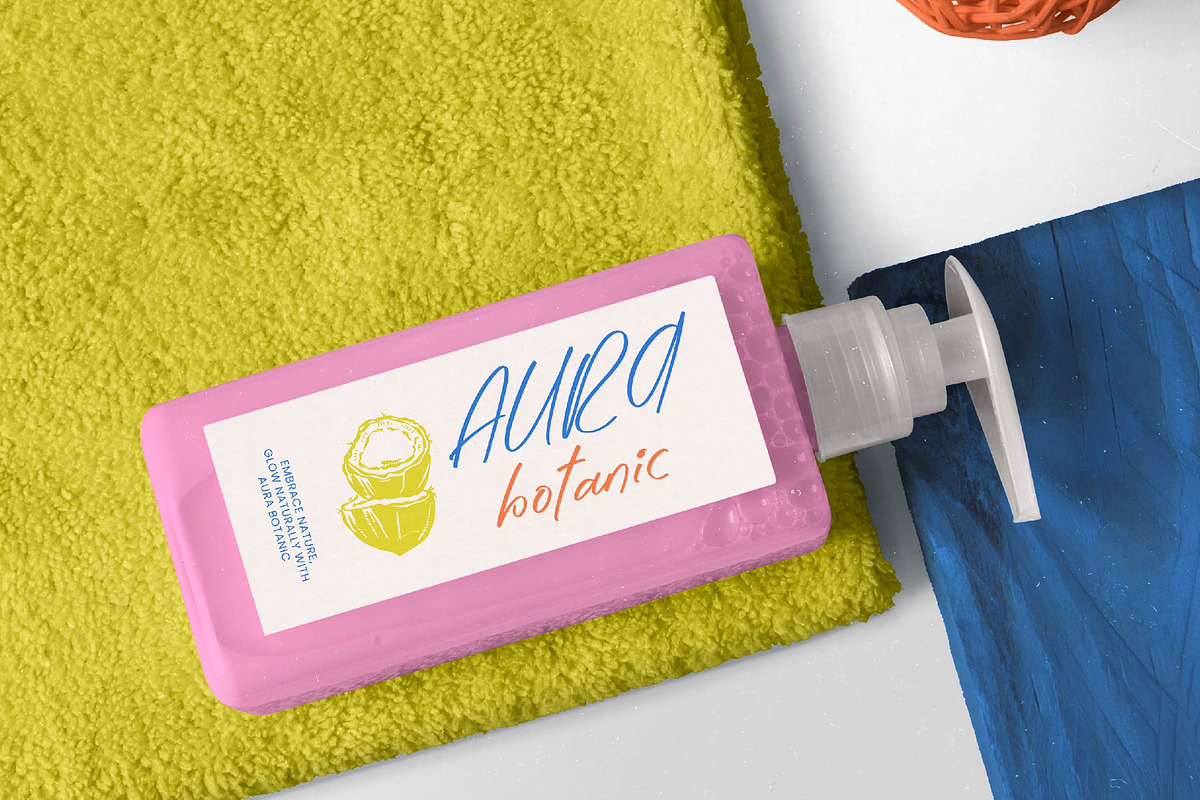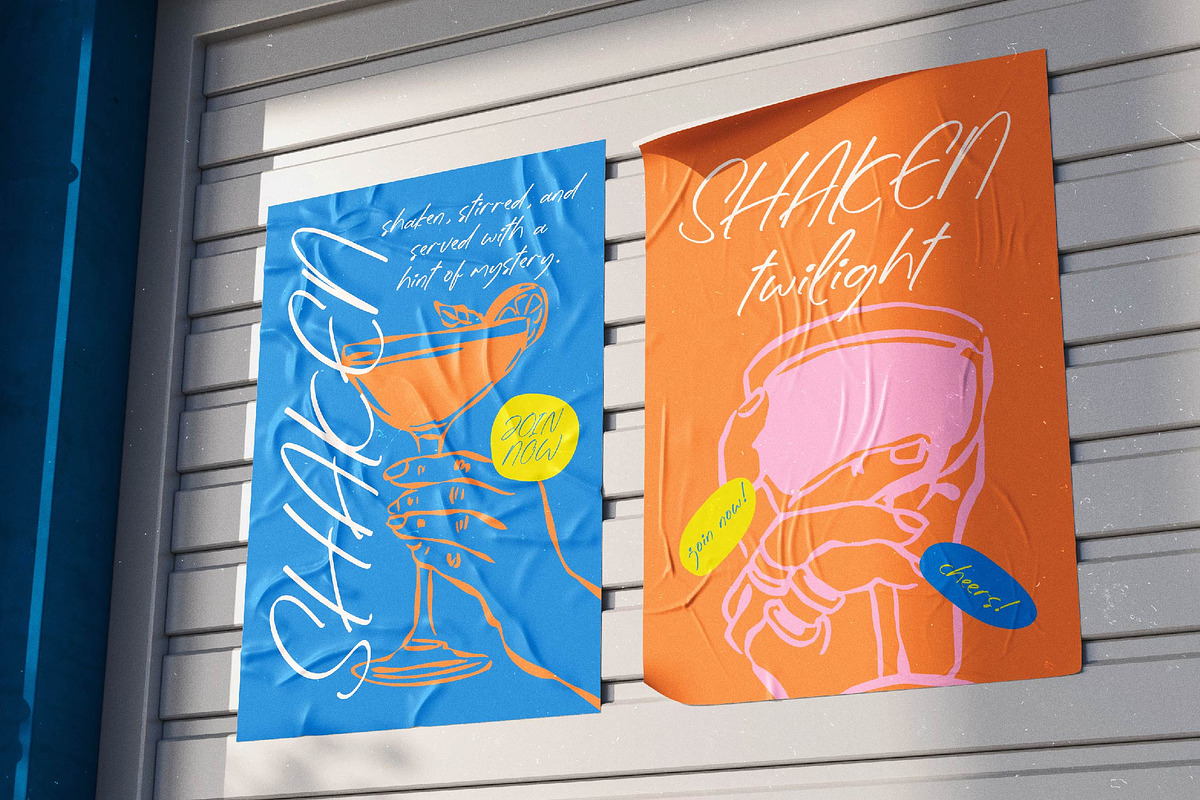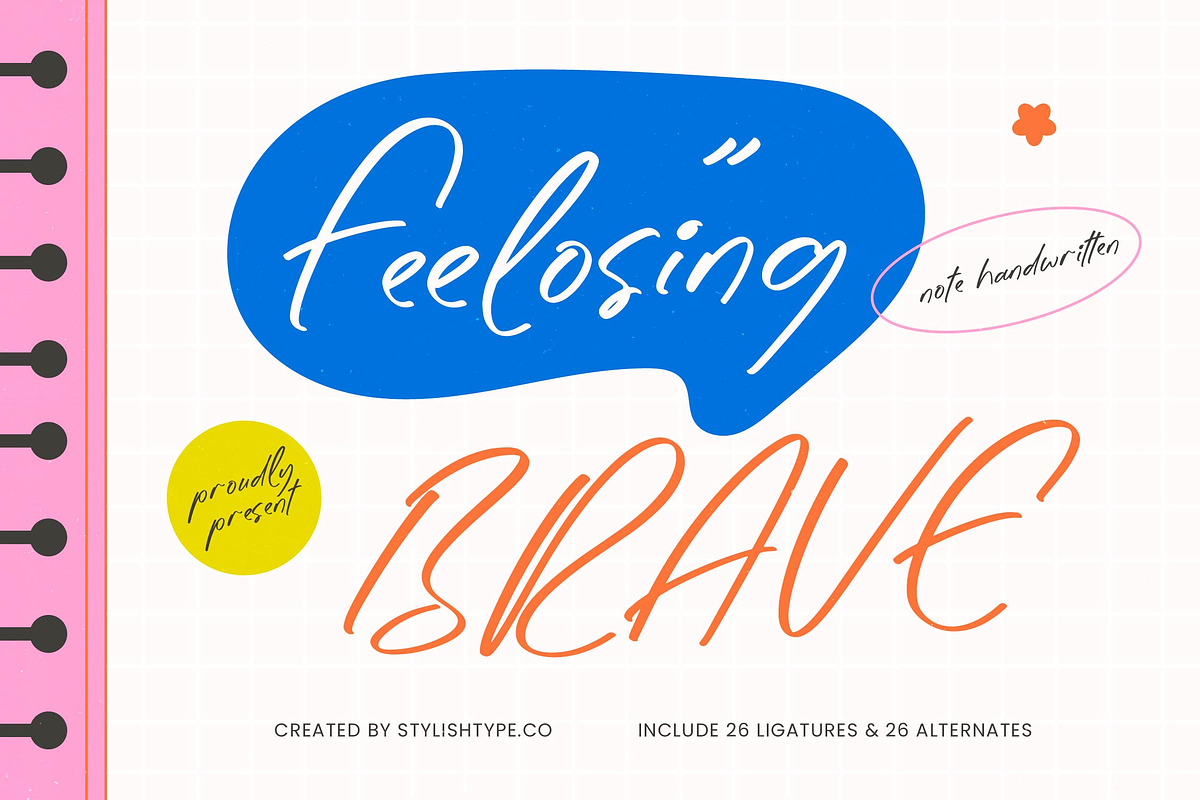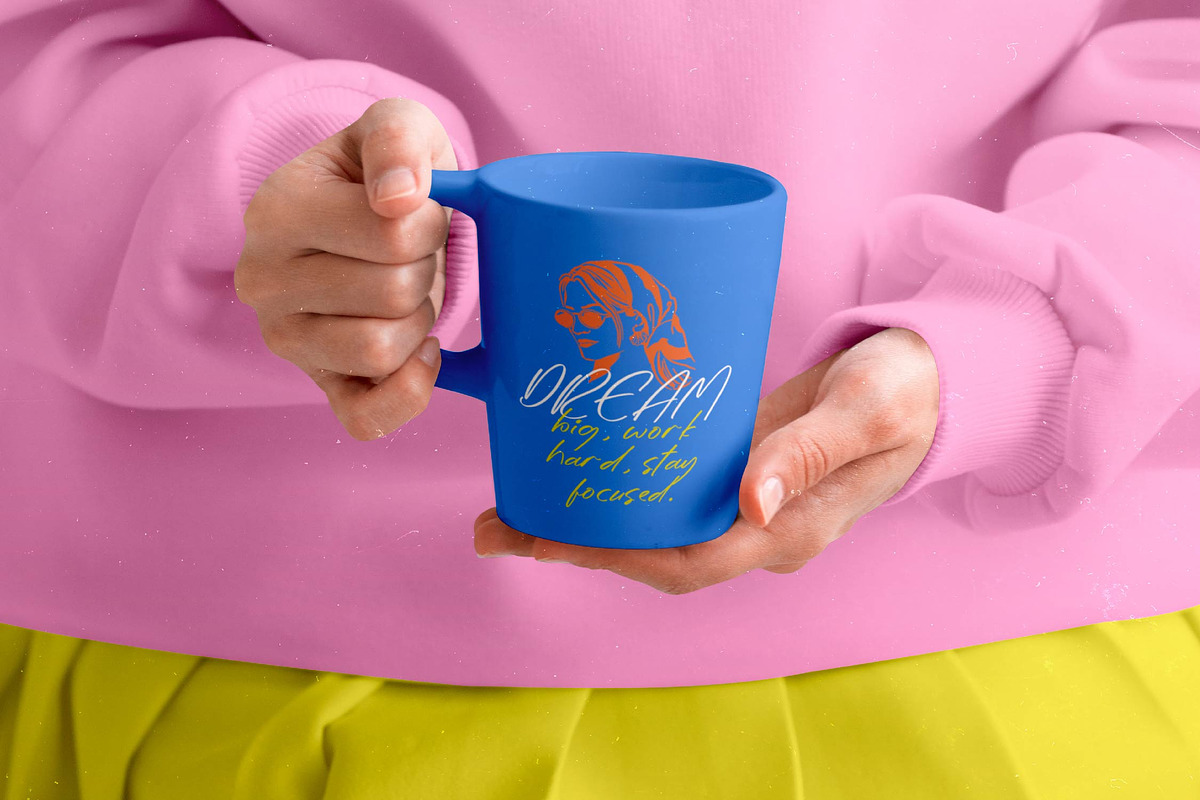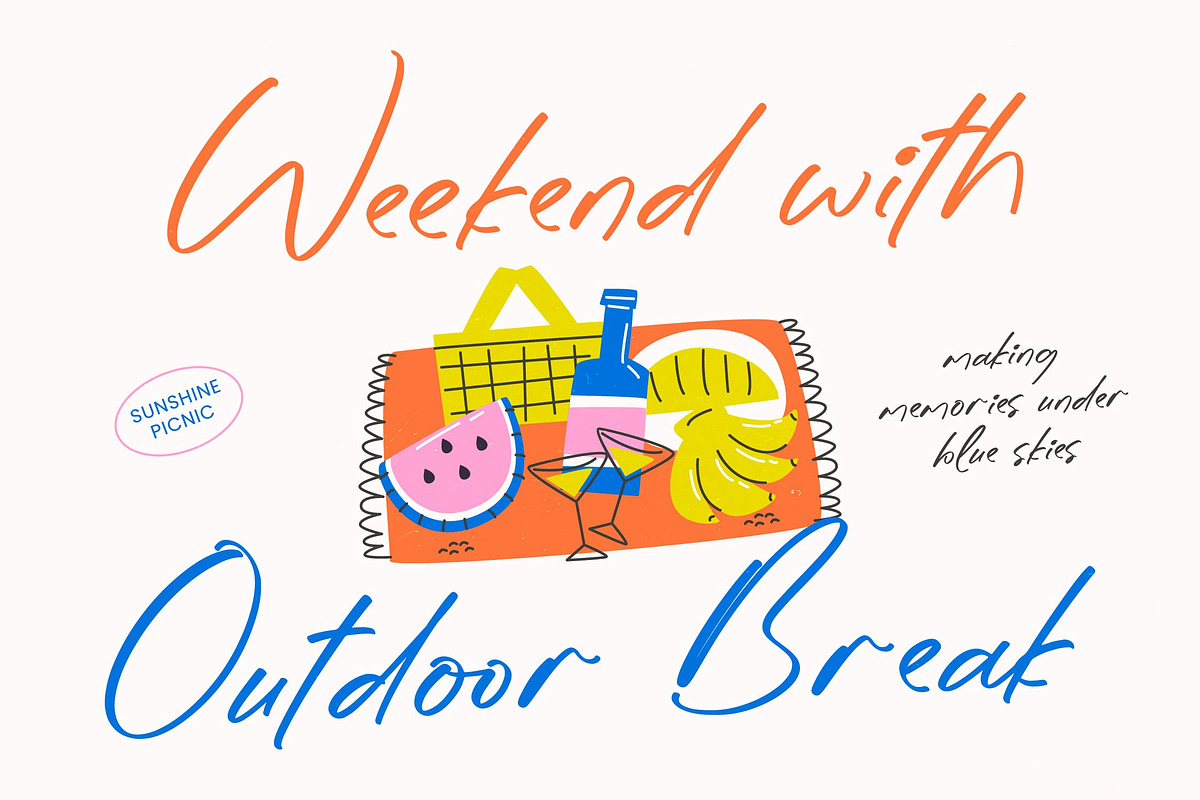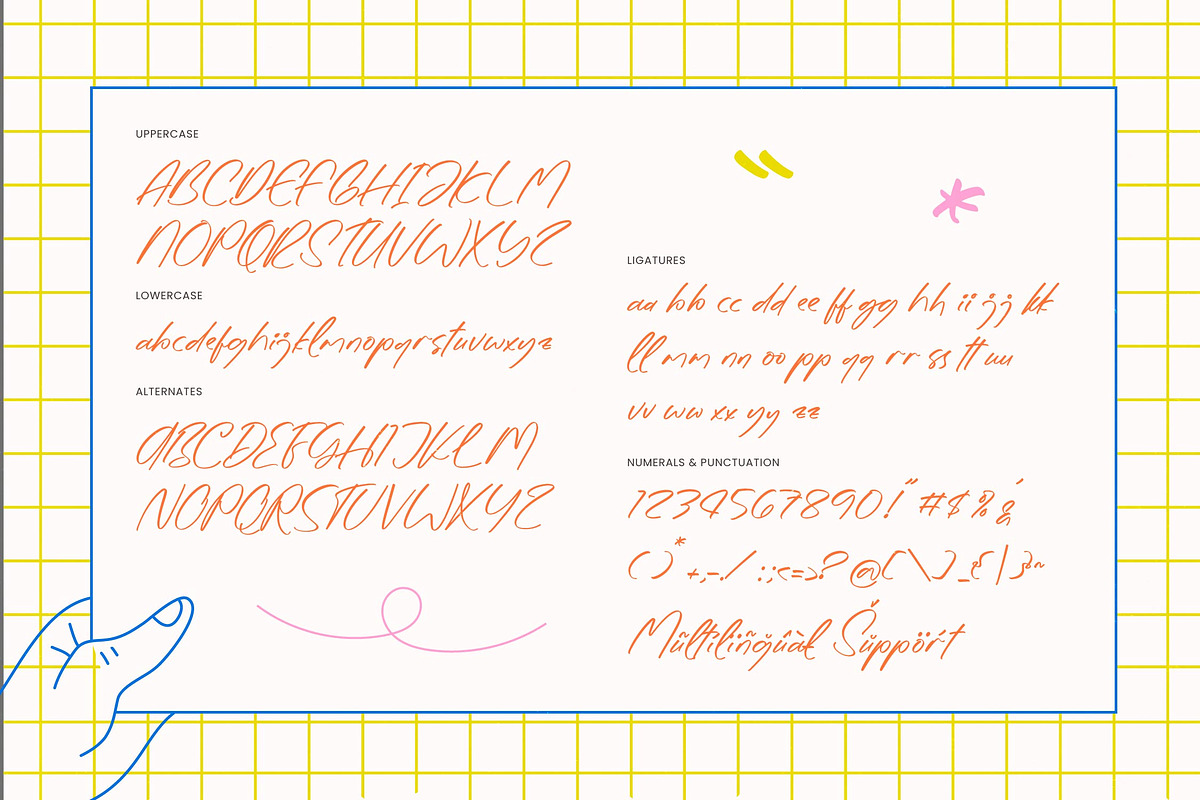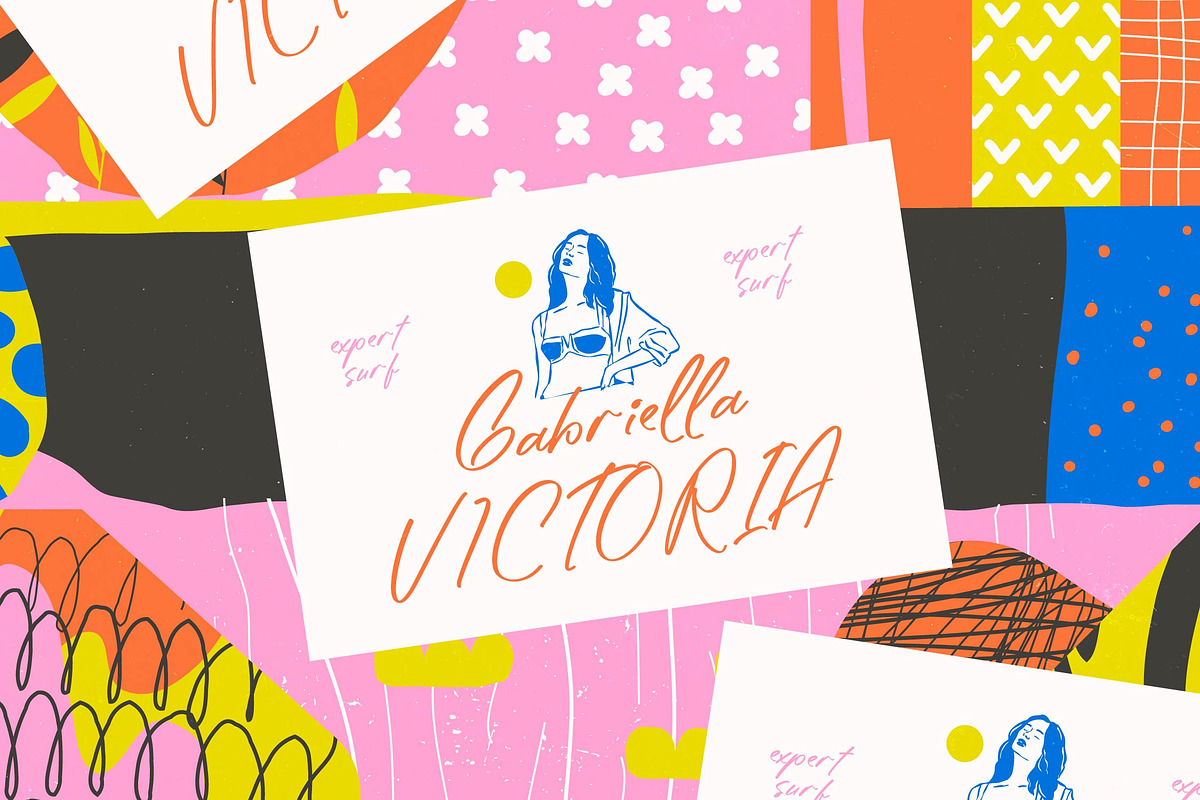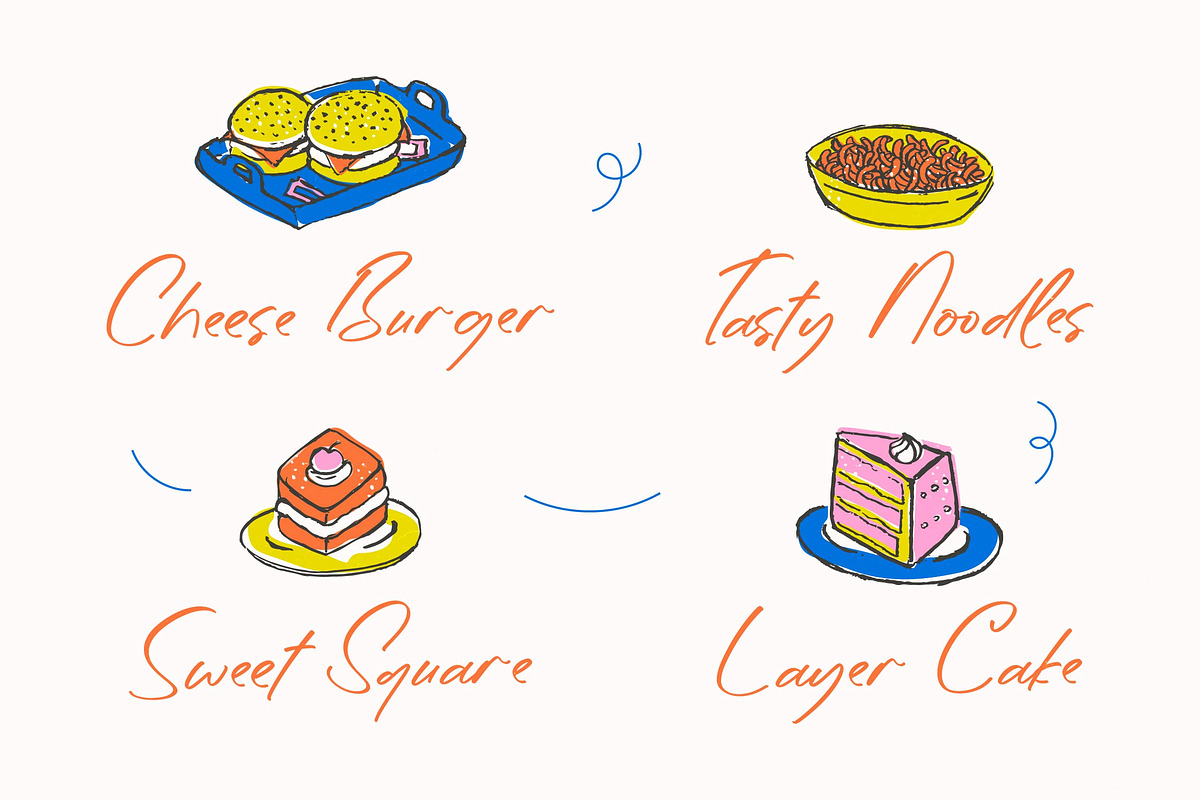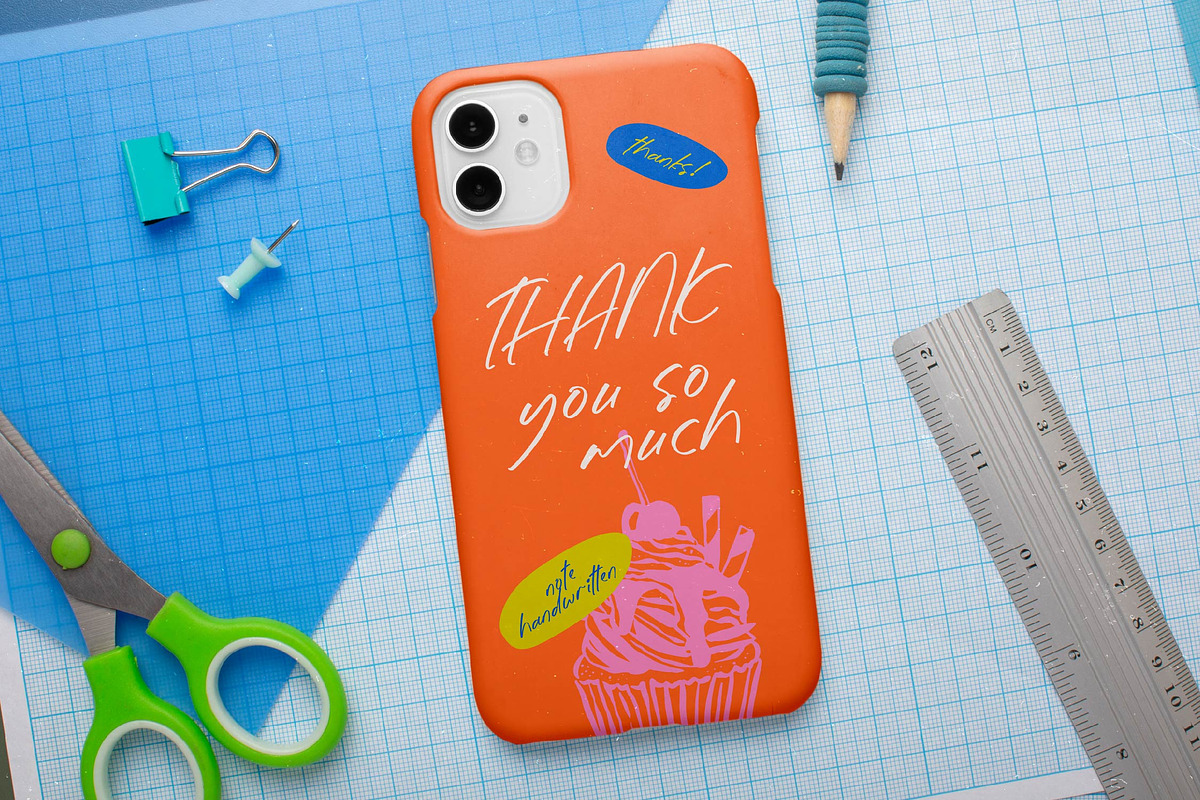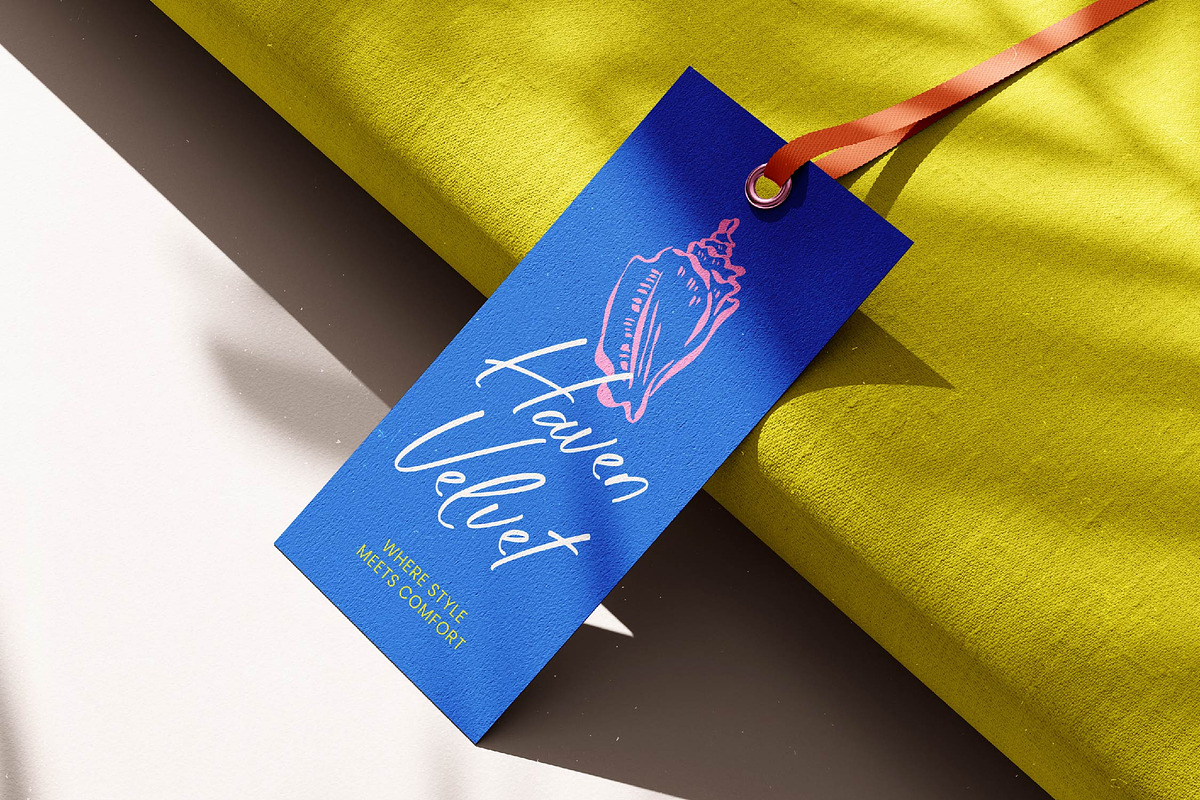
Feelosing Brave Note Handwritten
Feelosing Brave - Note Handwritten , Discover the perfect blend of organic movement and modern sophistication. Feelosing Brave - Note Handwritten captures the essence of authentic penmanship with a refined, contemporary edge. This handwritten script offers a unique fluidity that brings a personal, human touch to digital designs. Its flowing strokes and natural ligatures create a sense of effortless style, making Feelosing Brave - Note Handwritten an essential tool for designers seeking to convey warmth and creativity.
Elevate your global communication with a typeface designed for diversity and high performance. With its extensive multilingual support, Feelosing Brave - Note Handwritten adapts seamlessly across global markets, making it incredibly versatile for international projects. This robust character set ensures your brand message remains consistent and impactful regardless of the language. By integrating Feelosing Brave - Note Handwritten into your workflow, you gain a cross-cultural asset that maintains its signature aesthetic worldwide.
Transform your brand identity with unparalleled versatility and visual charm. This typeface is the ideal solution for luxury branding, bespoke packaging, and lifestyle editorial design. It is perfect for creating memorable logos, invitation cards, and social media graphics that require a handcrafted feel. Whether for high-end boutiques or casual digital content, Feelosing Brave - Note Handwritten provides the flexibility needed to stand out in a competitive market.
Experience the future of expressive typography today. Choosing Feelosing Brave - Note Handwritten means investing in a professional-grade font that balances distinctive character with professional legibility. Its dynamic rhythm and high-quality construction ensure it performs beautifully in both digital and print environments. Define your projects with the distinctive personality of Feelosing Brave - Note Handwritten, the ultimate choice for modern, commercial-quality design.